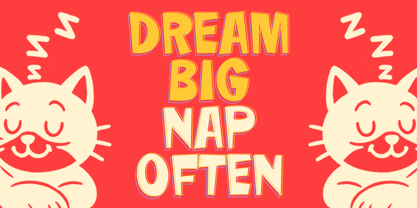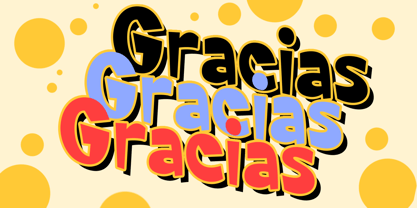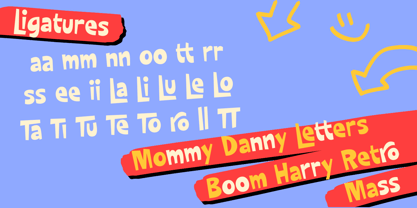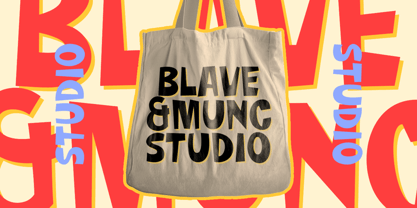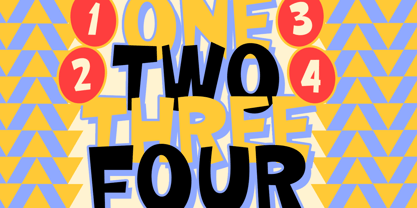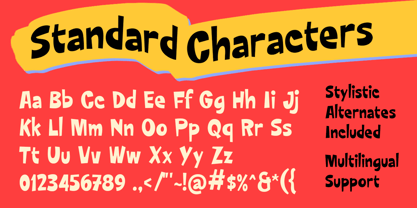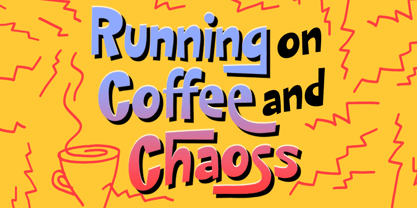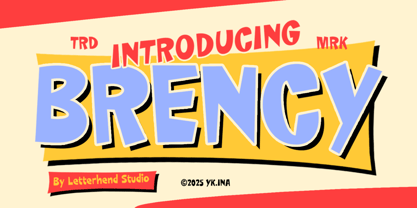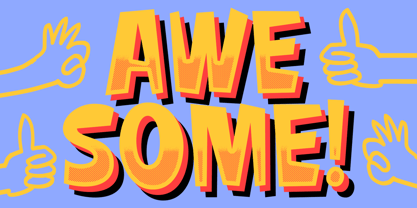
Brency
von Letterhend
Die Schriftfamilie Brency wurde von Hendry Juanda entworfen und von Letterhend veröffentlicht. Brency enthält 1 Stile. Mehr über diese Familie
Brency bursts with lively cartoon energy, featuring chunky letterforms, bold outlines, and a bouncy hand-drawn rhythm that feels straight out of a retro comic panel. Its exaggerated shapes and colorful, animated spirit make every word pop with joy and personality. Features : Uppercase & lowercase Numbers and punctuation Alternates & Ligatures Multilingual Support PUA encoded